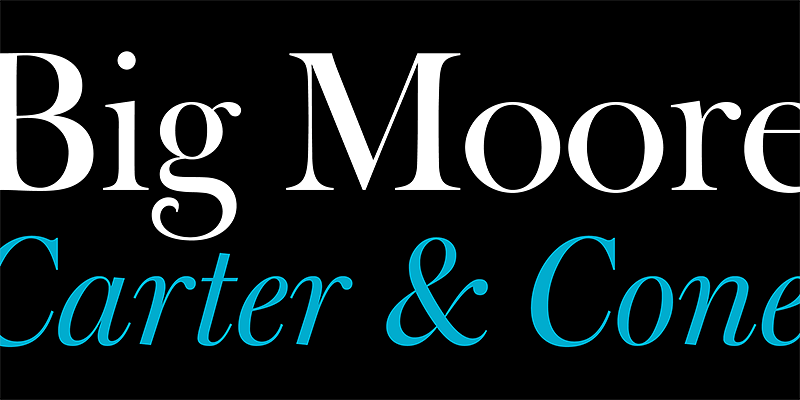
Big Moore Font Free Download is a bold, high-contrast serif display typeface with dramatic curves and a luxurious, editorial flair. Inspired by transitional serif styles and elevated by contemporary design trends, Big Moore is perfect for fashion magazines, branding, headlines, packaging, and high-end print or digital campaigns that demand elegance and impact.
With its sweeping letterforms, sharp serifs, and dynamic rhythm, Big Moore Font stands out in large sizes and is ideal for use in logos, covers, and promotional graphics. It offers a refined balance of sophistication and drama, making every word feel like a statement.